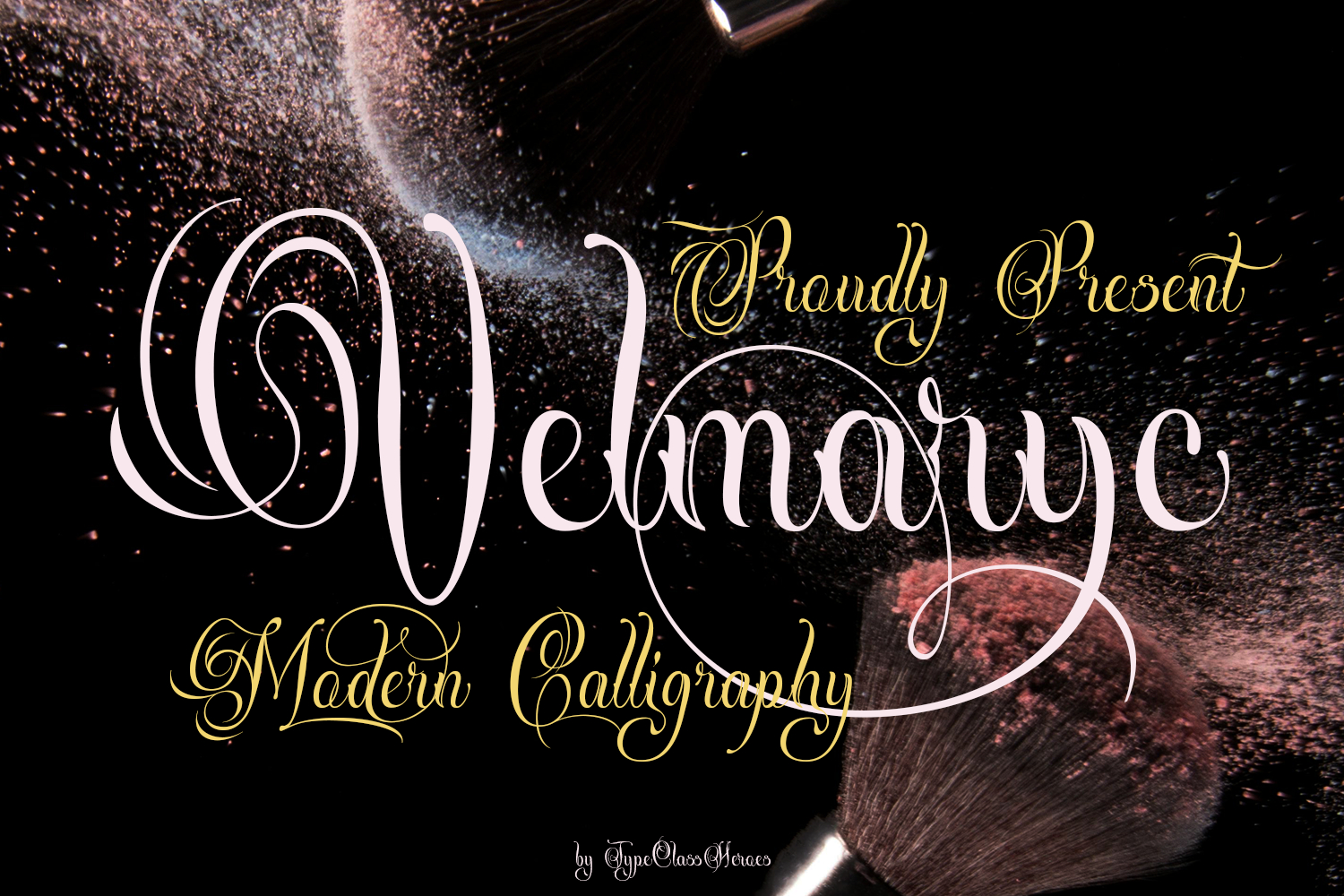
Velmarcy - Modern Calligraphy
Introducing Velmarcy modern calligraphy, this font features a combination of thin design, smooth curves, and well-maintained joints, making it the perfect choice for an elegant look. Each character is designed with a modern touch that is suitable for luxurious and feminine designs. Its clean and feminine aesthetic is perfect for logos, wedding invitations, or exclusive branding.
•  Uppercase & Lowercase
•  Number & Symbol
•  International Glyphs
•  Alternative
•  Ligature